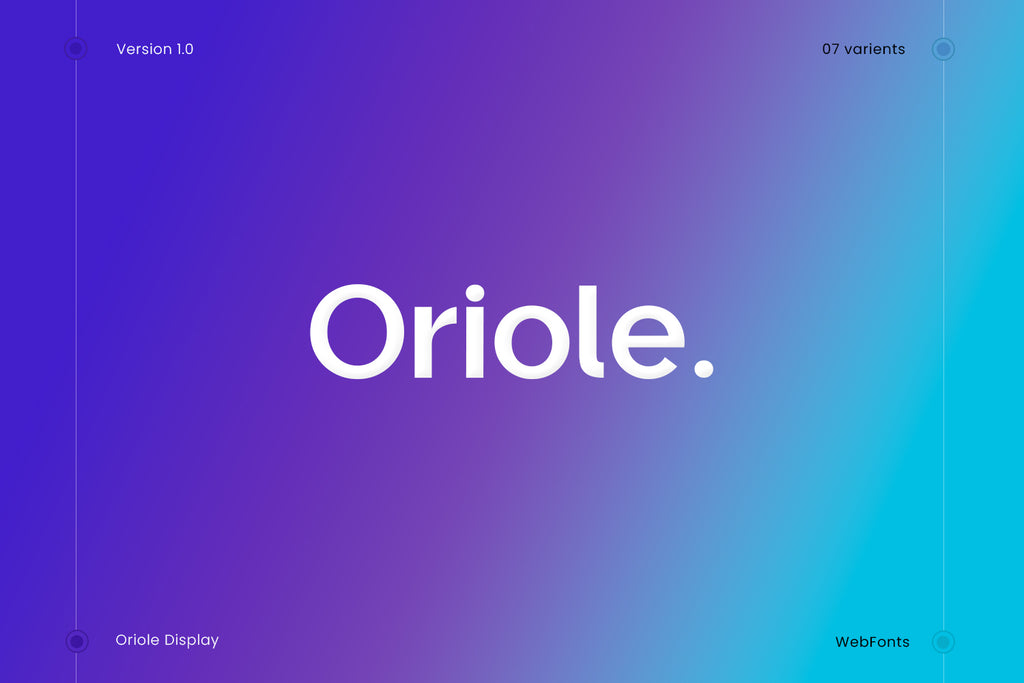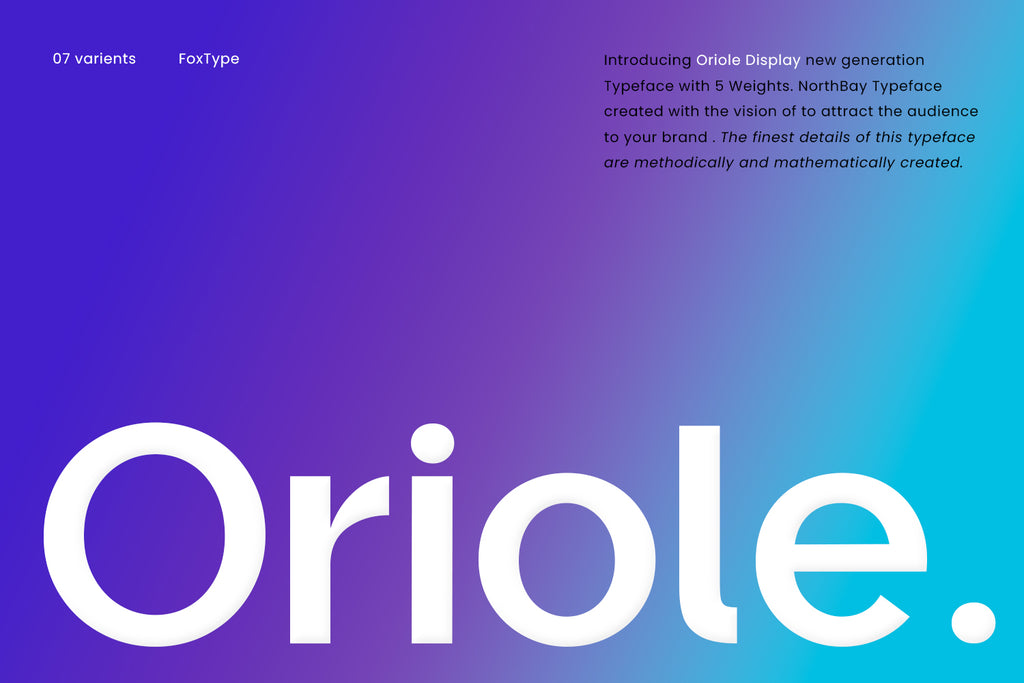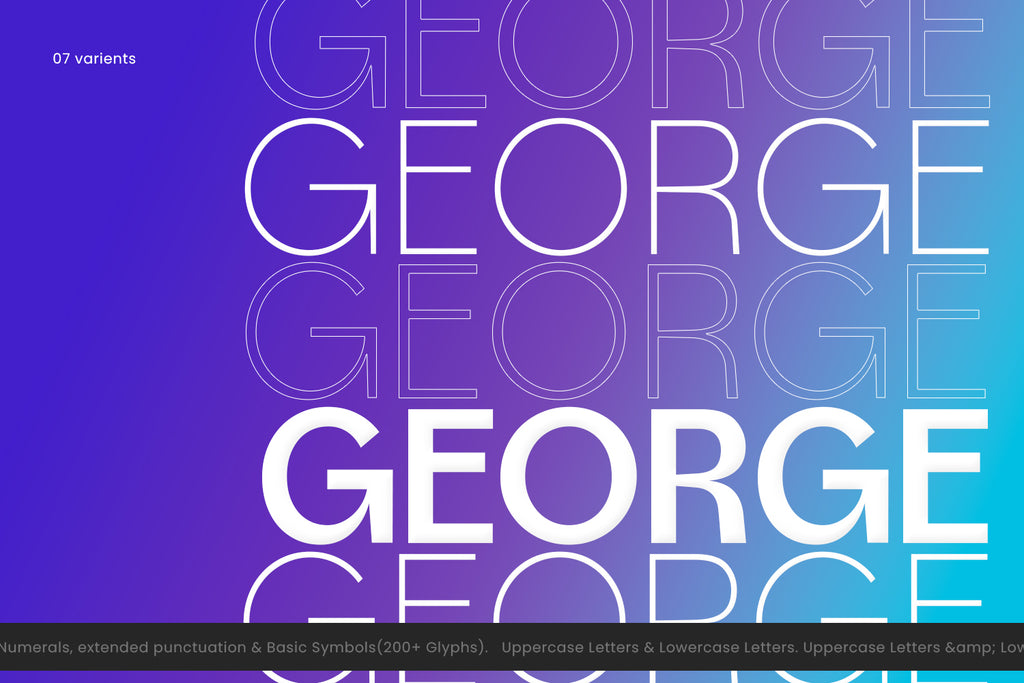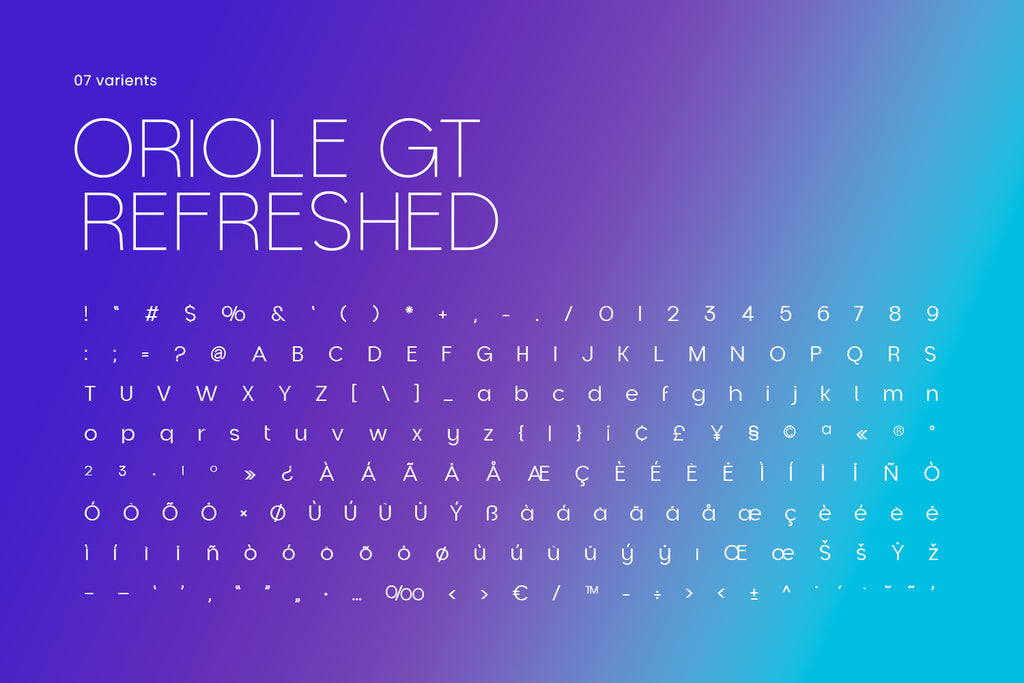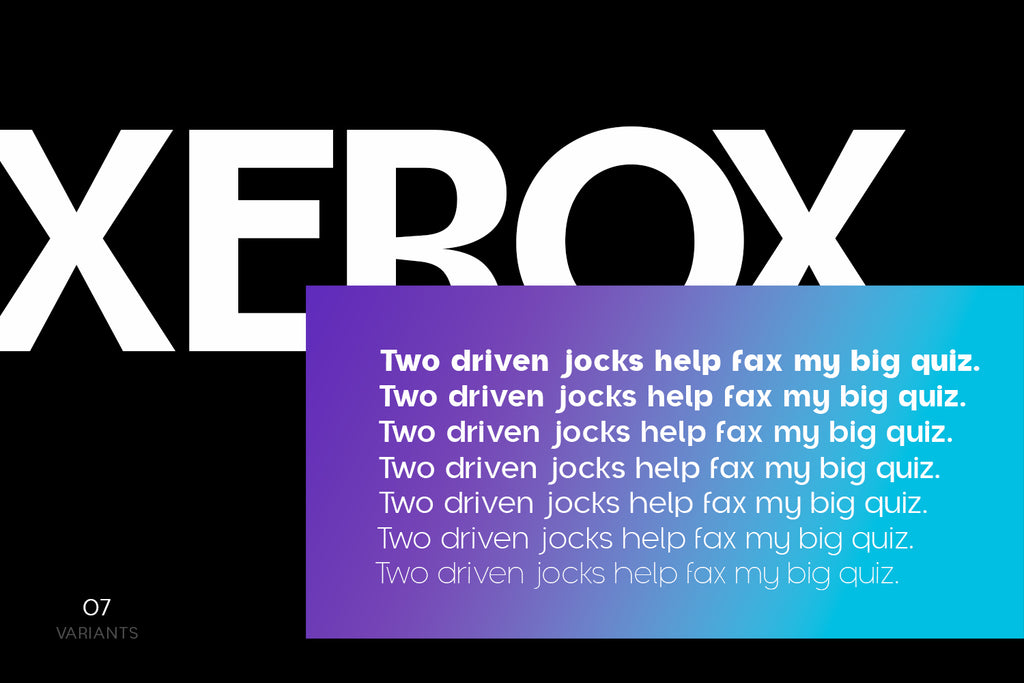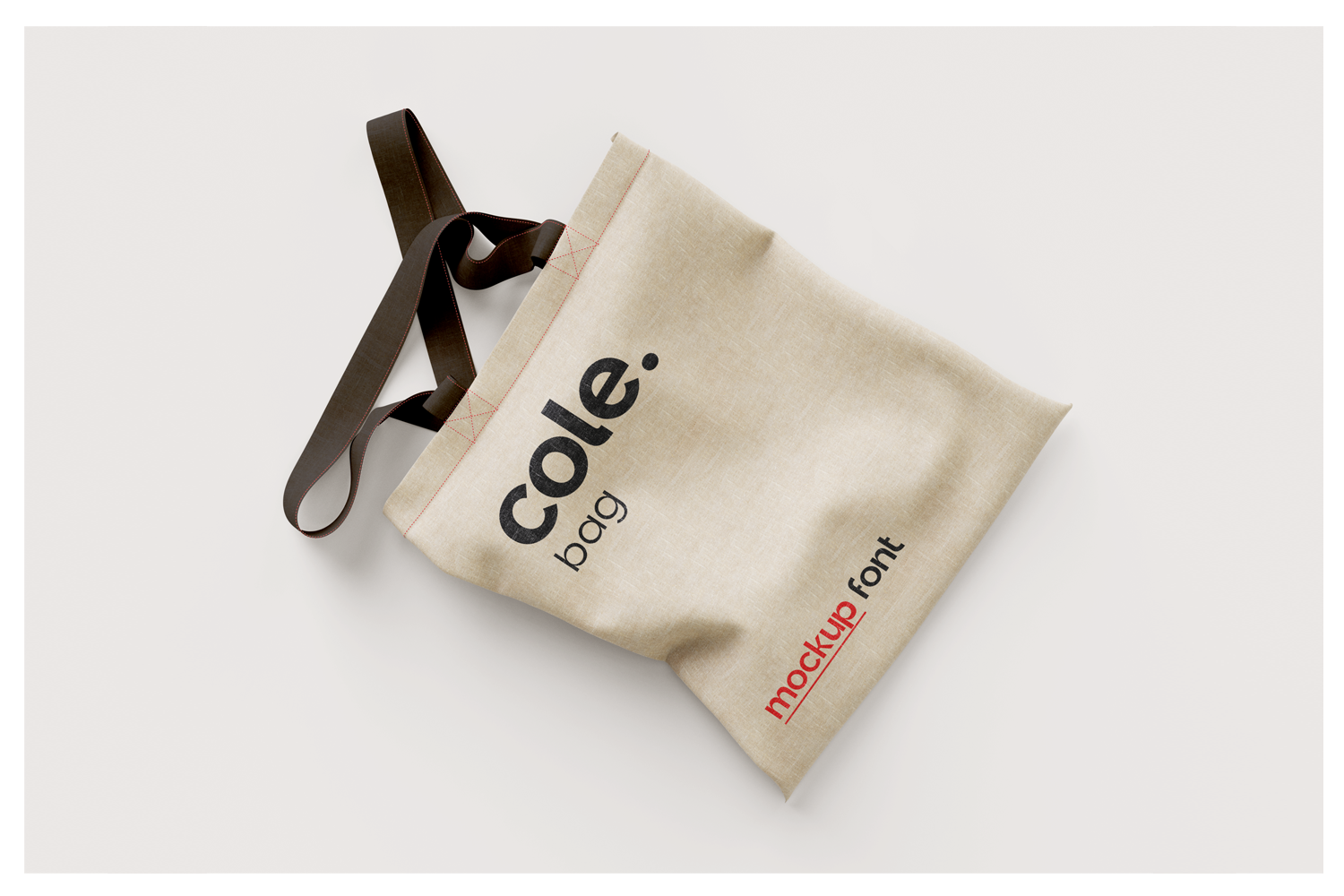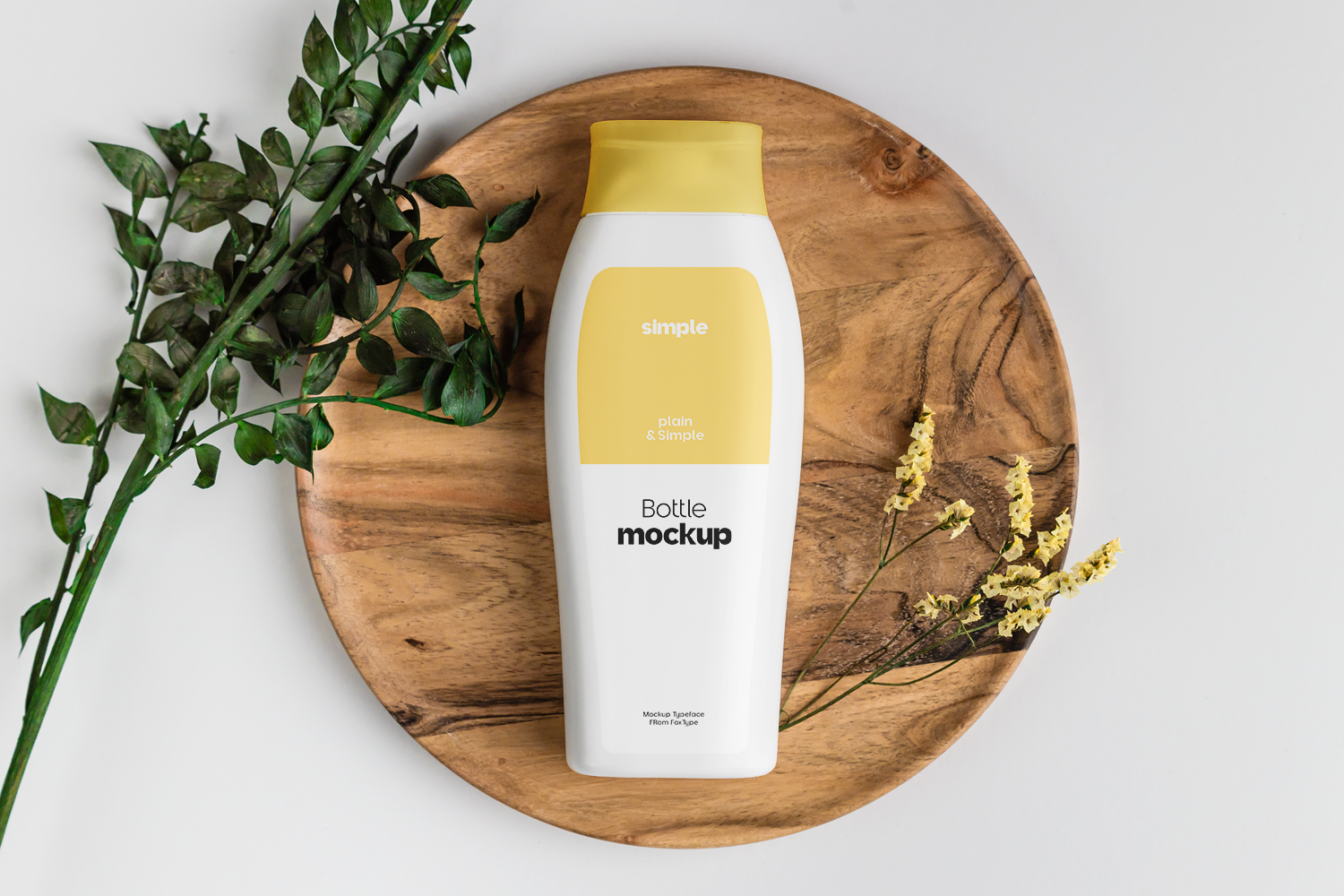
Oriole Display Typeface
Introducing Oriole Display new generation Typeface with 7 Weights. Oriole Typeface created with the vision of to attract the audience to your brand . The finest details of this typeface are methodically and mathematically created. Oriole is created with all the tasks of a corporate font and also for the usage in a variety of projects, including branding, logos, titles, headlines, servers, posters, screens, display, digital ads, and everything else.
We are putting a lot of effort on this font as a long-term project. The Typeface includes Seven Weights. ExtraLight, Light, Regular, Medium, SemiBold, Bold and ExtraBold
- Numerals, extended punctuation & Basic Symbols(200+ Glyphs).
- Uppercase Letters & Lowercase Letters